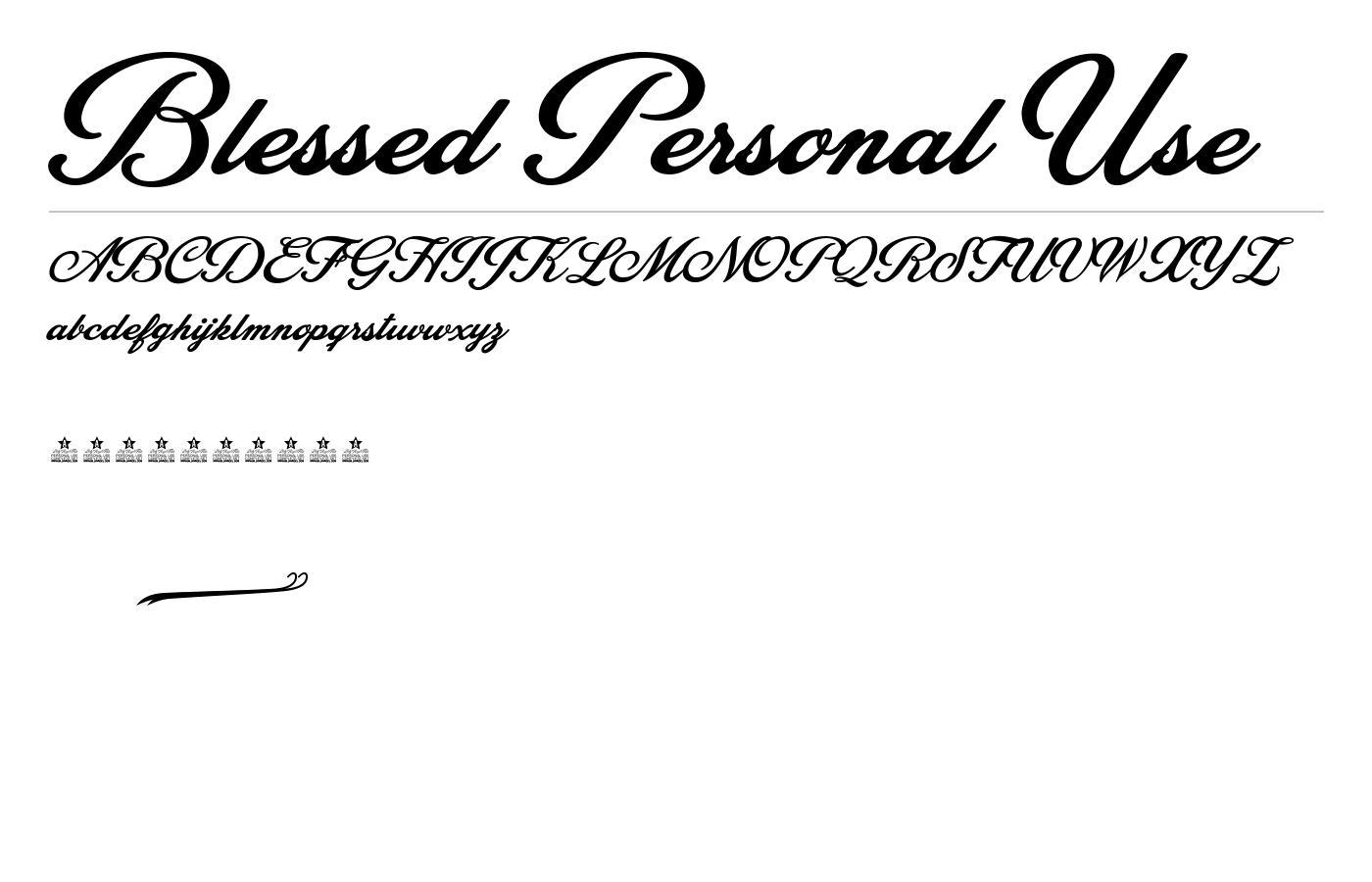
Blessed Personal Use is an elegant script font with a flowing, calligraphic style that gives it a refined and sophisticated look. Its smooth, medium-weight strokes and classic cursive form make it ideal for invitations, greeting cards, and branding that seeks a graceful, timeless appeal. This font works well in projects that require a touch of elegance and personal charm without losing readability.
Blessed Personal Use Font
About Blessed Personal Use Font